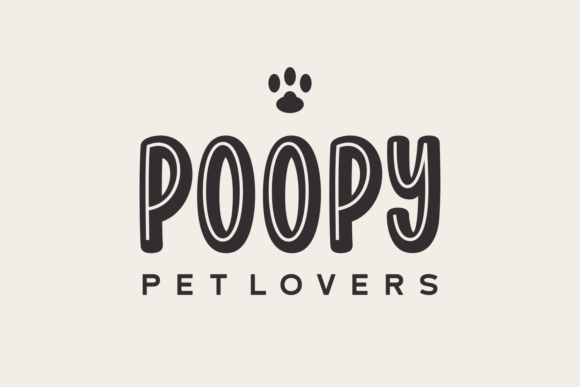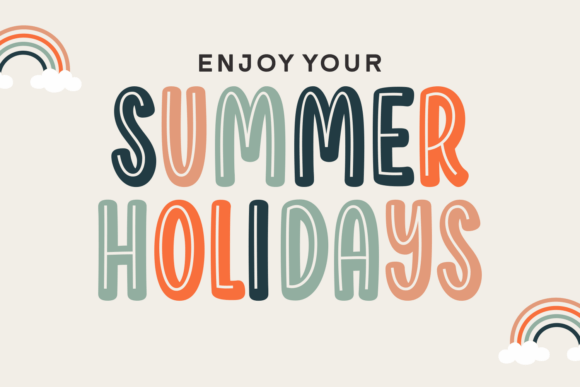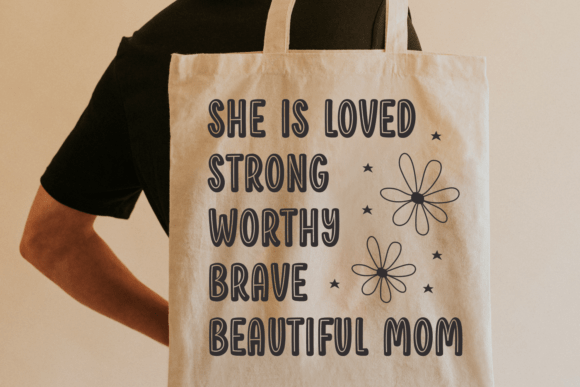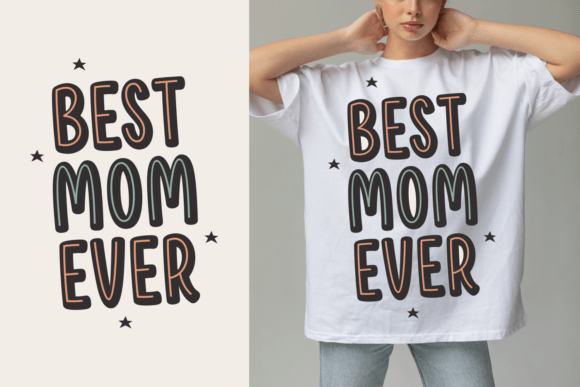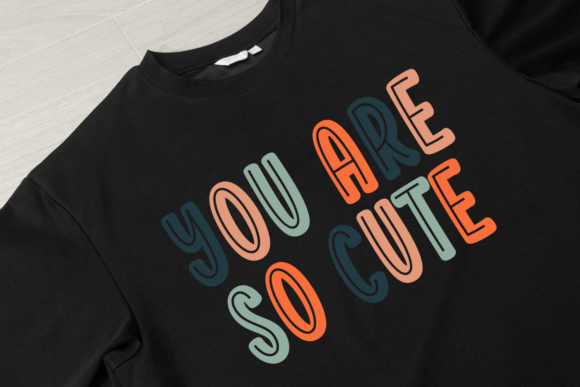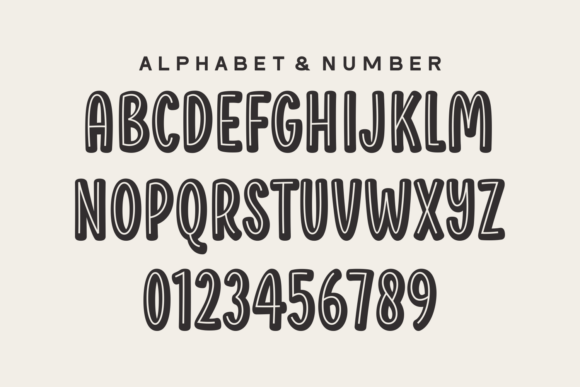
Unleash the Vibrancy of Books Rainbow Font: A Delightful Blend of Colorful Creativity
Are you tired of using the same old fonts in your creative projects? Look no further than the Books Rainbow Font, a unique and whimsical handwritten font that captures the essence of summertime joy. Designed with a fun-loving and sunny personality, this font is perfect for designers and crafters looking to add a touch of colorful creativity to their work.
A Font that Embodies Joy and Whimsy
The Books Rainbow Font is a delightful blend of colorful creativity and whimsical charm. Every curve and line traced in this font is a reflection of the designer’s fun-loving and sunny personality, which embodies the doodles of a doting mom. This playful font is not just cute; it’s an embodiment of joy, a reflection of summer bursts, and a stroke of pure rainbow brilliance.
Whether you’re a designer looking to create eye-catching graphics or a crafter seeking to add a personal touch to your DIY projects, the Books Rainbow Font is the perfect choice. Its unique and playful design makes it ideal for a variety of creative projects, including:
- DIY crafts and scrapbooking
- Invitations and party decorations
- Blog posts and website headers
Key Features of the Books Rainbow Font
The Books Rainbow Font has several key features that make it stand out from other fonts:
- Unique and Whimsical Design: The font’s playful design is perfect for adding a touch of personality to your creative projects.
- Handwritten Style: The font’s handwritten style gives it a personal and friendly feel.
- Colorful and Vibrant: The font’s colorful and vibrant design is perfect for adding a pop of color to your projects.
- Easy to Read: Despite its playful design, the font is easy to read and understand.
The Books Rainbow Font is a unique and delightful font that is perfect for designers and crafters looking to add a touch of colorful creativity to their projects. Its playful design, handwritten style, and vibrant colors make it ideal for a variety of creative projects. Whether you’re looking to create eye-catching graphics or add a personal touch to your DIY projects, the Books Rainbow Font is the perfect choice. So why wait? Immerse yourself in the vibrancy of the Books Rainbow Font and bring a touch of summer joy to your creative projects!